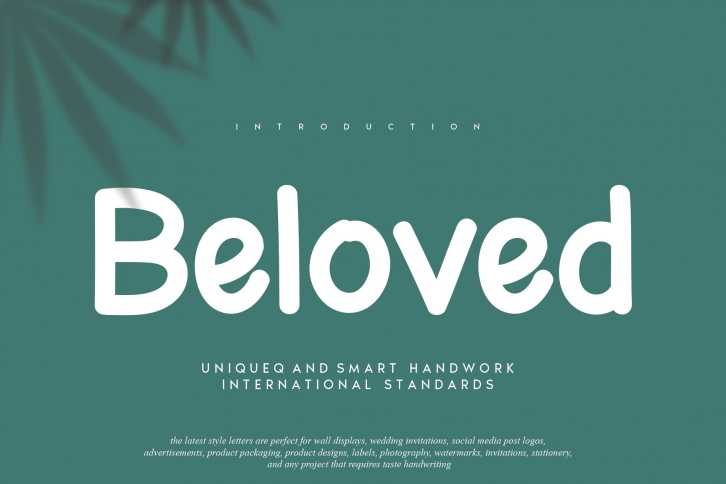
Beloved is a beautiful font that was designed by andikastudio. It's a great choice for designers and creatives who need such a font. It was released on August 19, 2020 and the file size is 8.88 MB. Beloved may give a more youthful, expressive and casual look to your project. It is a very beautiful, refined, elegant, and high-quality font.